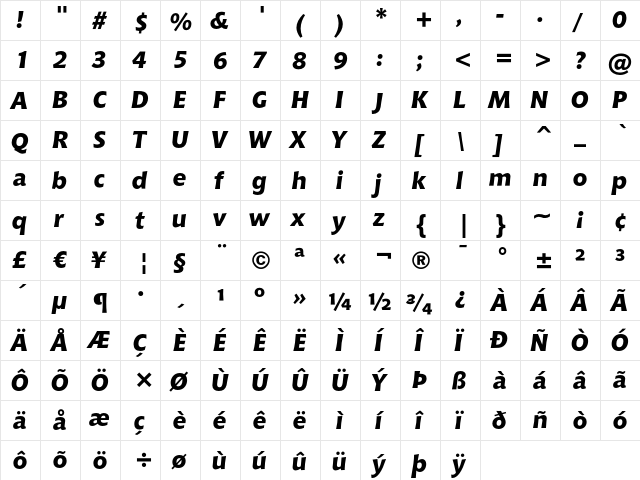
Bitstream Chianti Extra Bold Italic Font Preview
Design Context for Bitstream Chianti Typeface
Bitstream Chianti takes a measured approach to typography — its balanced proportions and neutral character make it a reliable workhorse for both digital and print work. Its italic angle brings a sense of urgency and motion to the letterforms. Its bold stroke weight gives it real presence on the page.
Pro Tip: Try Bitstream Chianti for annotation and caption copy alongside an upright companion — the contrast in angle creates a dynamic but ordered typographic system.